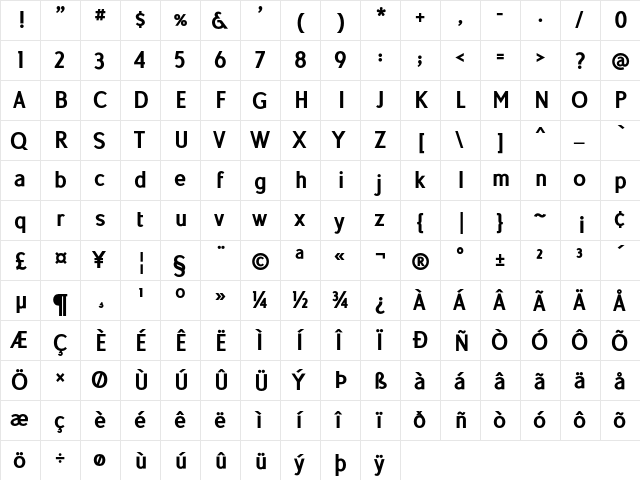
Kiamat Doomsday Ultra Bold Regular
| Designer | LayarBahtera Design Team |
Design Context for Kiamat Doomsday Ultra Bold Typeface
Kiamat Doomsday Ultra Bold offers clean, dependable letterforms without strong stylistic allegiance, making it a practical choice for designers who need flexibility. Its bold stroke weight gives it real presence on the page.
Pro Tip: Use Kiamat Doomsday Ultra Bold in both headline and body roles to test its range before committing to a single application.